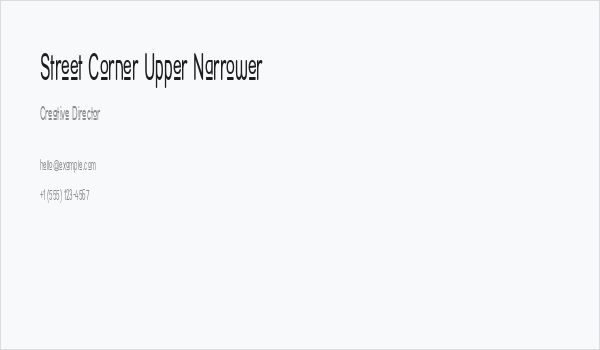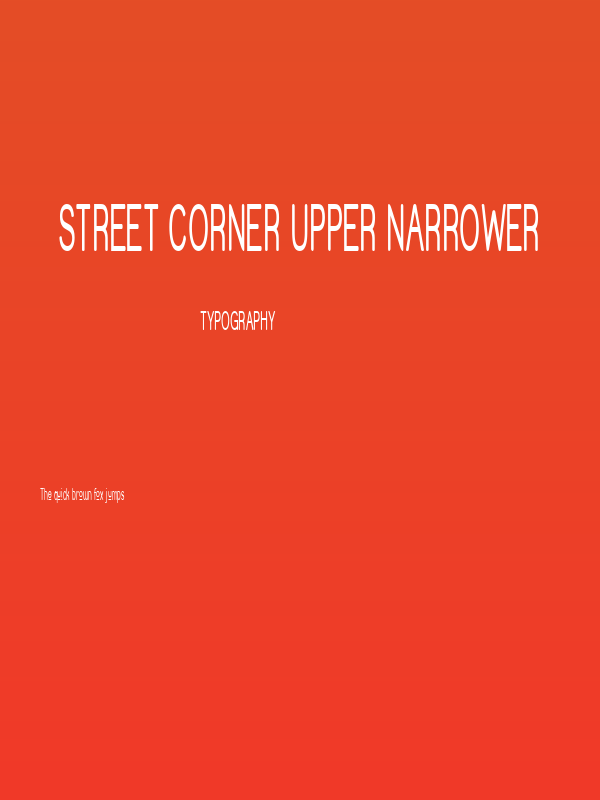
Street Corner Upper Narrower Font
Street Corner Upper Narrower Description
This font features a tall, narrow design with a modern and clean aesthetic. The uppercase letters are elongated, giving a sleek and sophisticated appearance. The lowercase letters maintain a consistent height, complementing the uppercase with a balanced look. Numbers are clear and legible, matching the overall style. Special characters are distinct and well-integrated, ensuring versatility in various applications. The font's uniform stroke width and minimal contrast contribute to its contemporary feel, making it suitable for a range of design projects.
| Use Case | Headlines, Logos, Signage |
| Proposed Projects | Ideal for branding, signage, and editorial design where a modern and sleek look is desired. |